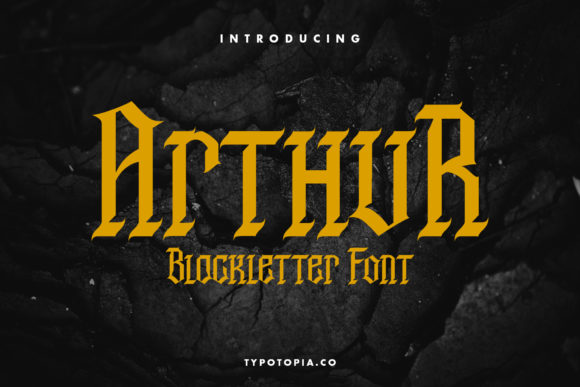
Adorn your designs with Arthur Font, a captivating blackletter font that exudes a timeless vintage charm. Immerse yourself in the world of typography with its intricate details and strong characters. Arthur Font is the perfect choice for creating eye-catching logos, posters, flyers, and other vintage-inspired projects that demand attention.
Journey back in time as you explore the limitless possibilities of Arthur Font. Let its bold strokes and sharp edges add a touch of drama to your creative endeavors. Whether you're a seasoned designer or just starting your typographic journey, Arthur Font is an essential tool for adding a touch of sophistication to your work.
Unleash your creativity and let Arthur Font take center stage in your designs. Its versatility extends beyond vintage aesthetics, making it suitable for a wide range of projects. From elegant invitations to whimsical branding, Arthur Font effortlessly adapts to your unique vision.
With Arthur Font, you'll never be short of inspiration. Its timeless appeal and adaptability ensure that your designs remain relevant and captivating. Embrace the power of typography and let Arthur Font elevate your creations to new heights.